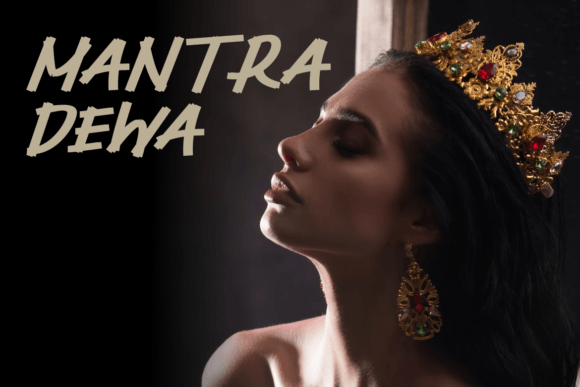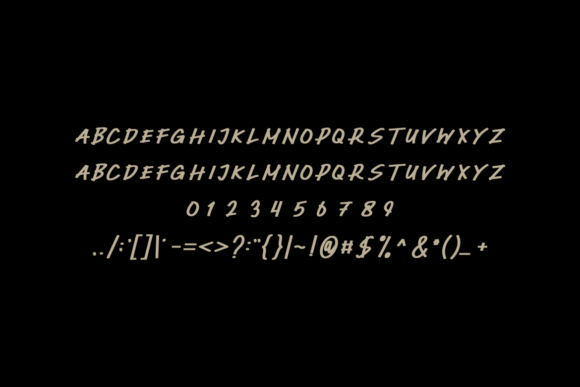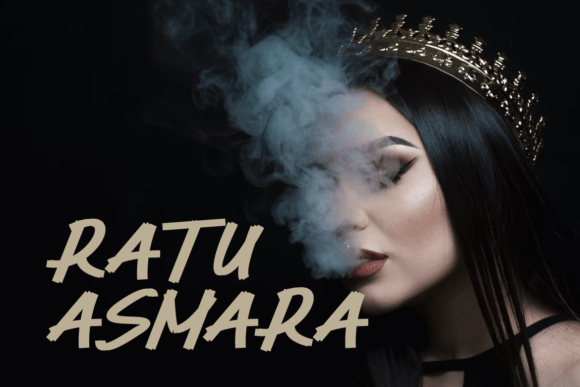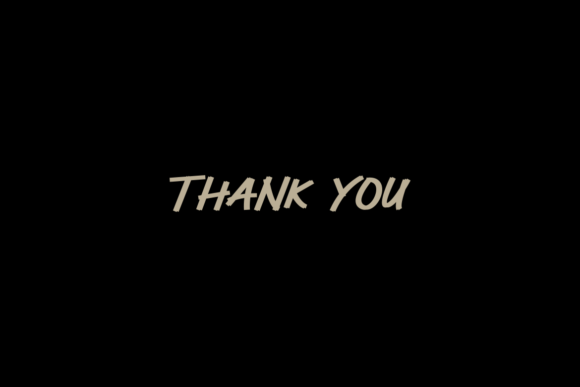
Bring Your Designs to Life with the Broudleni Font
Have you ever been stuck in a creative rut, staring at a blank page, searching for that one spark to ignite your imagination? You’re not alone. We’ve all been there. But what if I told you that there’s a secret to unlocking your full design potential? For many creatives, it starts with the right tools – and that’s where the Broudleni Font comes in.
This modern brush font is a game-changer for designers looking to add a touch of elegance and sophistication to their work. With its smooth, flowing strokes and bold, artistic style, the Broudleni Font is perfect for creating eye-catching logos, posters, and invitations that truly stand out from the crowd.
Whether you’re a seasoned pro or just starting out, the Broudleni Font is a valuable addition to any designer’s toolkit. Its versatility and unique style make it an essential resource for anyone looking to take their designs to the next level.
Broudleni Font Key Features
• Size: The font family includes 4 weights – Light, Regular, Medium and Bold, each with its own unique characteristics.
• Unique Characteristics: The font features a unique blend of modern and traditional elements, with distinctive letterforms and a wide range of typographic features.
Broudleni Font Review
I must say, I was quite excited to dive into the world of Broudleni Font. Upon initial inspection, I noticed a few things that really caught my eye: ✨
• The font’s unique blend of modern and vintage elements makes it stand out in a crowded market.
• The inclusion of multiple weights and styles gives designers a wide range of creative options.
• The font’s versatility allows it to be used in various contexts, from branding to body text.
However, I did encounter some limitations: ⚠️
• The font’s bold and condensed styles can be quite dense, making them challenging to read at smaller sizes.
• The font’s italic styles can appear slightly irregular, which may not be ideal for text-heavy content.
• The font’s character set is not as extensive as some other fonts in its class.
Overall, I’d say that Broudleni Font has some great qualities that make it a solid addition to any designer’s toolkit. While it may not be perfect, its unique character and versatility make it worth considering for the right project. With a bit of careful planning and consideration, I think Broudleni Font can be a real showstopper.
Tip: Use Broudleni Font for headings and titles to add a touch of elegance to your designs.
Tip: Use Broudleni Font for typography-heavy designs, such as posters or brochures.
Tip: Use Broudleni Font for titles and headings to add a touch of sophistication to your presentations.
Broudleni Font is ideal for:
• Typography-heavy designs, such as posters and brochures.
• Adding a touch of elegance to headings and titles.
• Creating sophisticated